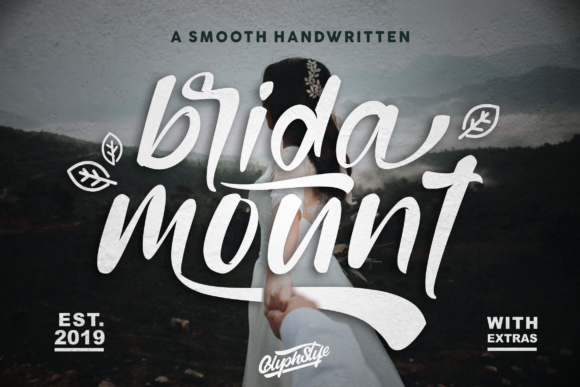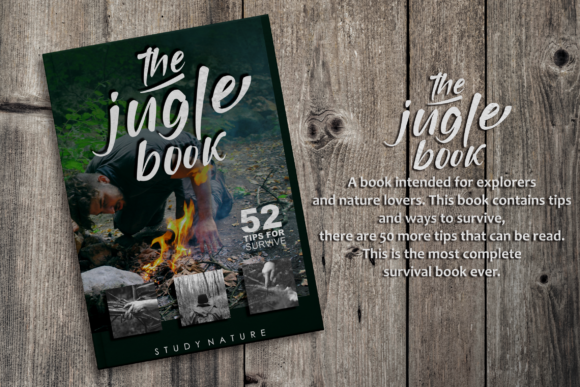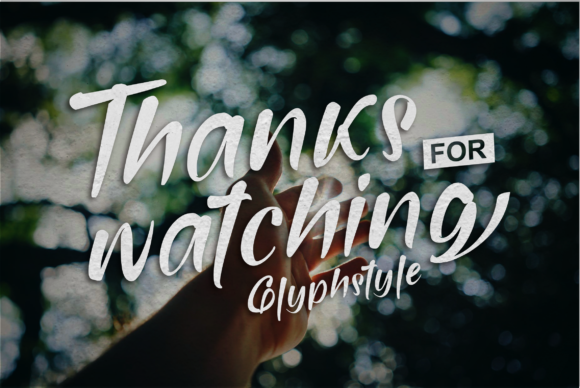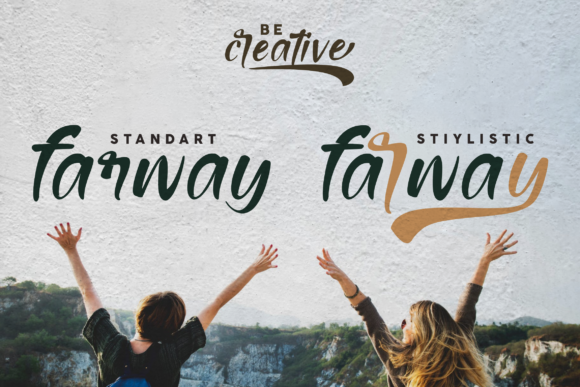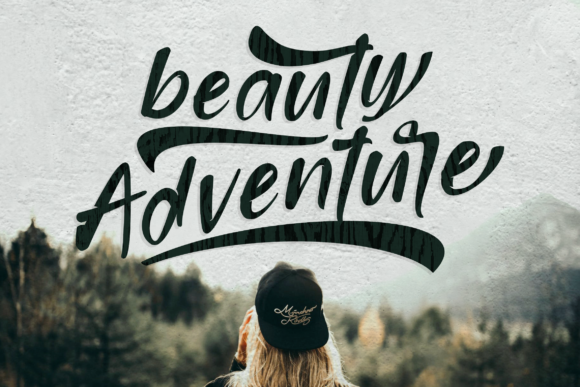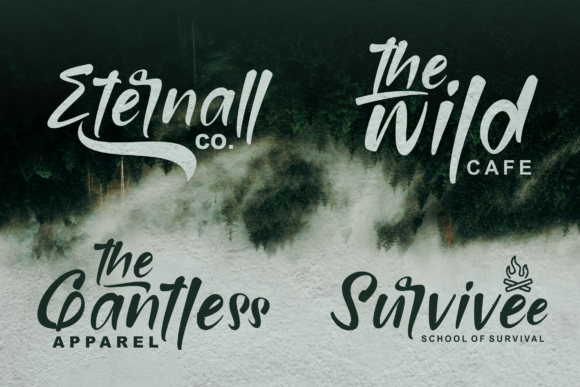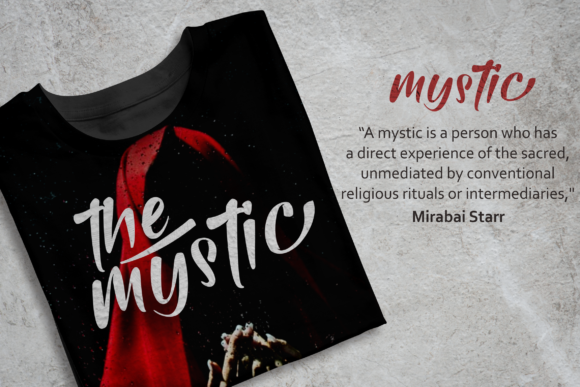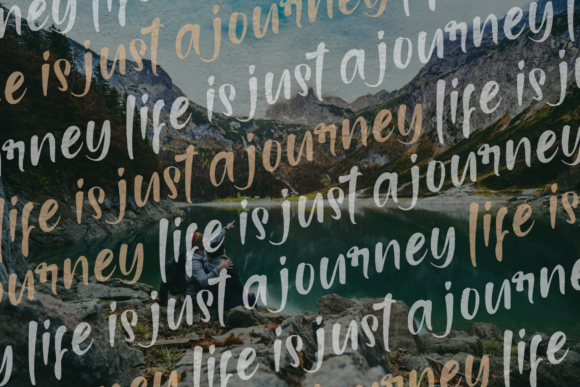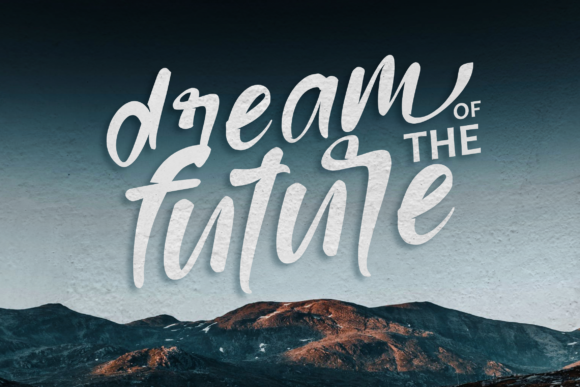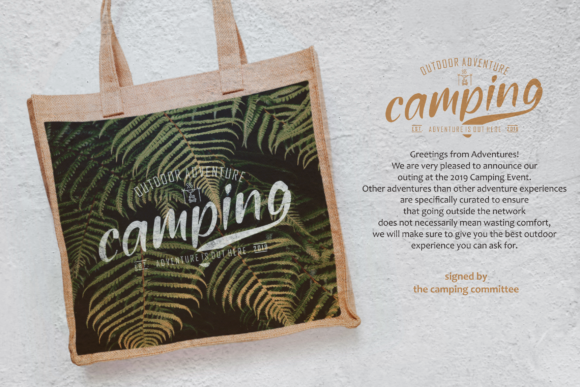
Bridamount Font
About Bridamount Font
Bridamount is a smooth and charming handwritten font with an incredibly beautiful feel. It will add an adventurous touch to any design project!